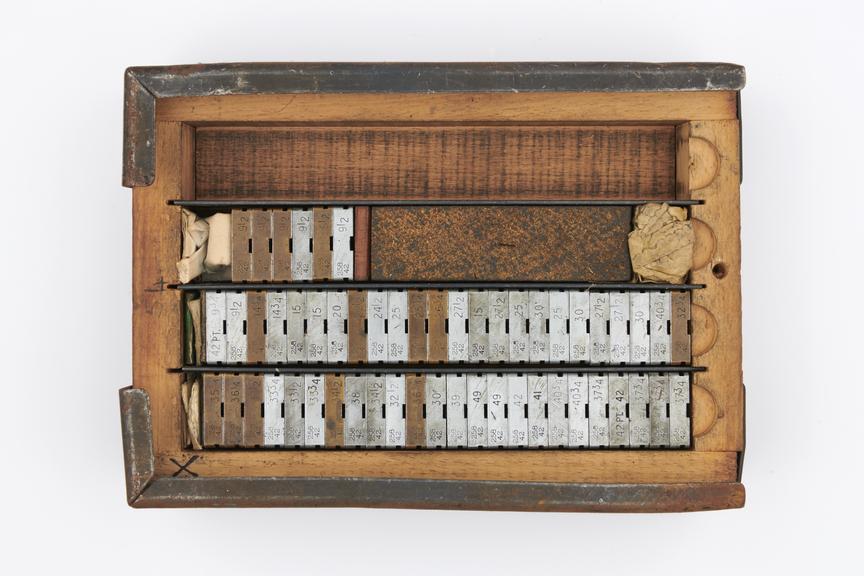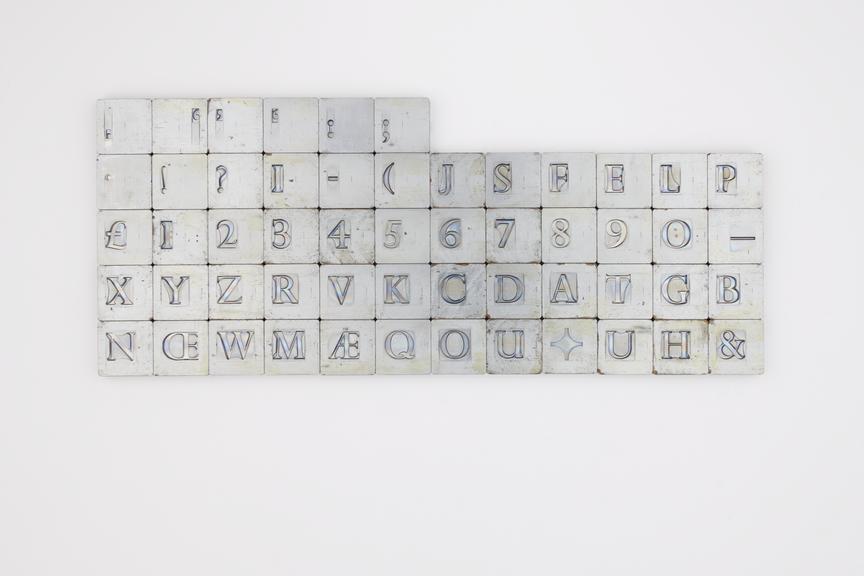
Display size matrices for Perpetua Titling (Typeface series number: 258)
Display (1.0") size matrices for Perpetua Titling (Typeface Series number: 258), 42. In original wooden box no. 852, manufactured by Monotype Corporation. Part of Monotype Loan Library collection.
A Monotype matrix is a bronze metal die from which type characters are cast. Type in sizes 14 point and larger is known as display size because of its suitability for setting as headings and titles as opposed to continuous text. Most display matrices measure 1 inch (2.54cm) x 1 inch, although some of the 72-point matrices are slightly larger. Display matrices are stamped with the series number, the point size and a figure indicating the width at which to cast it.
The Monotype Corporation produced metal matrices as well as machines that composed and cast type. The user of a Monotype machine could cast as much fresh type as they needed from a set of matrices. The company established a Display Matrix Loan Library in London so that printers with their own Monotype Super Caster machine could borrow display matrices for individual jobs, rather than buying them and locking up capital. It contained over 1,300 sets of matrices in custom-made boxes. There were often several sizes of the same design available. The typefaces include historical revivals such as Plantin, traditional typefounders’ designs such as Goudy Old Style and original designs such as Albertus. A full fount of roman or italic display matrices of any one size could be hired per day or per week. They were also available for purchase.